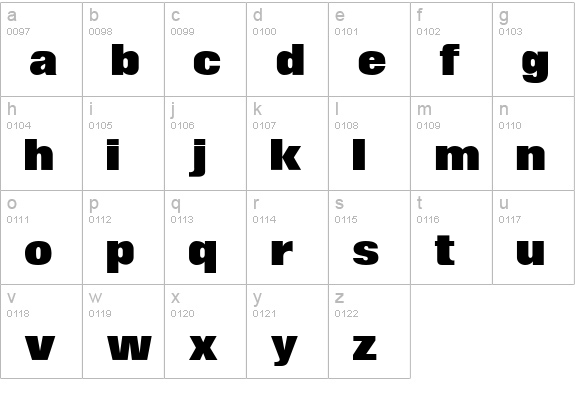
Surin Display SSi Font Details
Surin Display SSi is a modern and stylish font that exudes elegance and sophistication. With its sleek lines and sharp edges, this typeface is perfect for creating eye-catching designs that demand attention. The font's versatility makes it suitable for a wide range of projects, from branding to editorial design. The best part about Surin Display SSi font is that it is available for free download at FontsMarket.com. This means that you can access this beautiful font without any cost, making it a valuable addition to your design toolkit. Whether you're working on a personal project or a professional assignment, Surin Display SSi font will elevate your work and help you create visually stunning designs effortlessly. Download this font today and unlock its full potential for your next project.